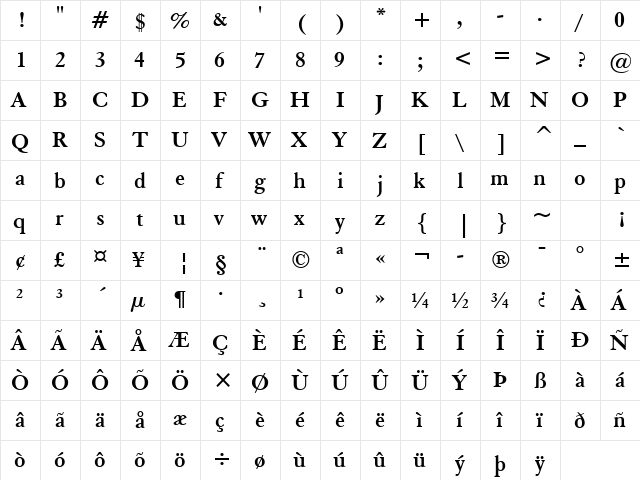
ElegaGarmnd BT Bold Font Preview
ElegaGarmnd BT Bold
ElegaGarmnd BT Bold Font Details
Design Context for ElegaGarmnd BT Typeface
ElegaGarmnd BT takes a measured approach to typography — its balanced proportions and neutral character make it a reliable workhorse for both digital and print work. Its bold stroke weight gives it real presence on the page.